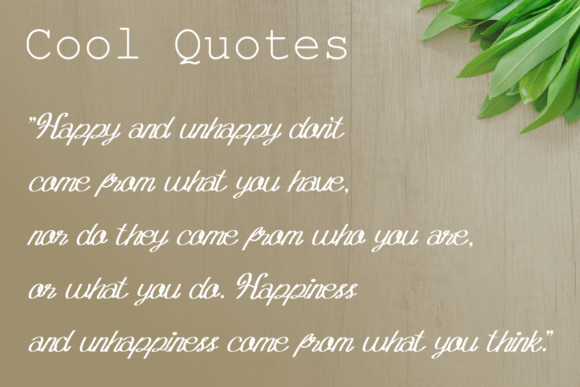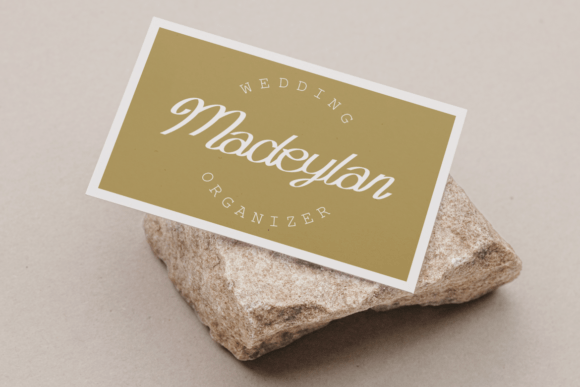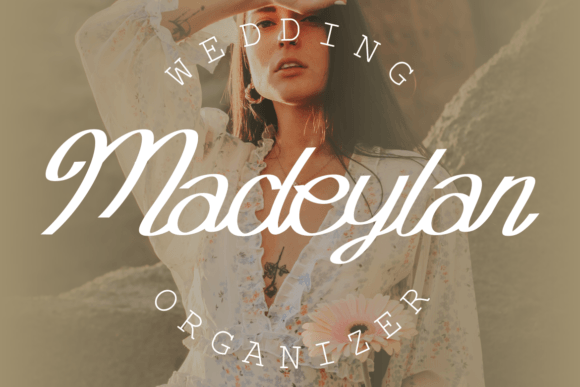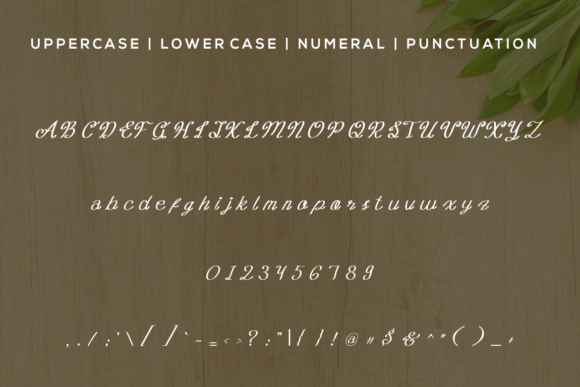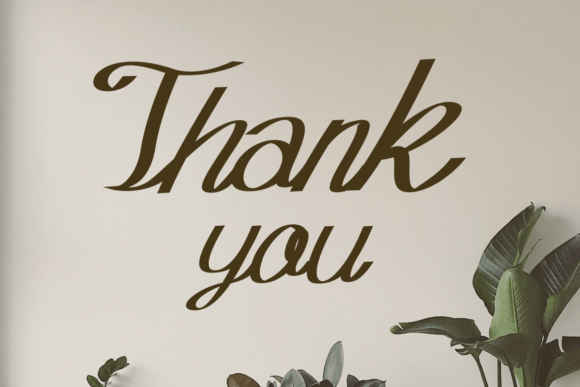
Introduction to Madeylan Font
Madeylan font is a powerful and elegant display typeface, created to make the most of horizontal space.
Built from hand-drawn sketches The font makes a strong impression in print, headlines, videos, and social media – whether paired with a contrasting typeface or on its own.
Key Features of Madeylan Font
Why Choose Madeylan Font?
Madeylan Font offers exceptional quality and versatility, making it a valuable addition to your design toolkit. Whether you’re creating for personal projects or commercial use, Madeylan Font delivers professional results.